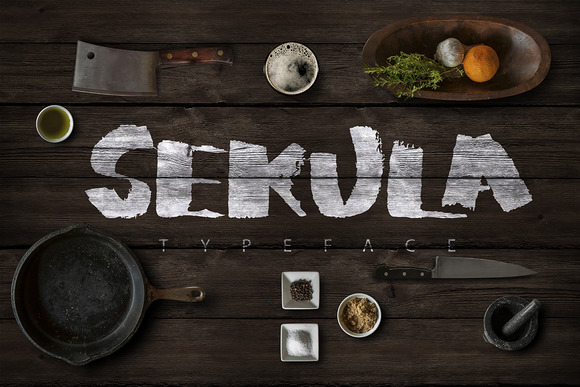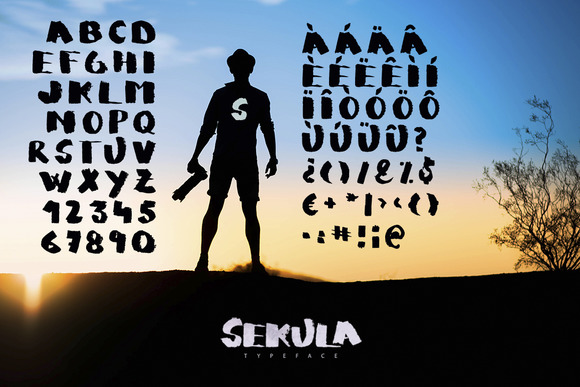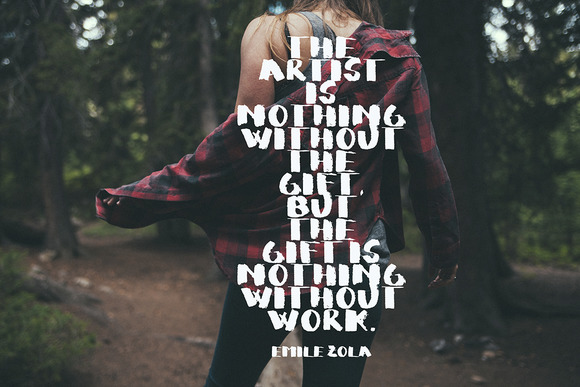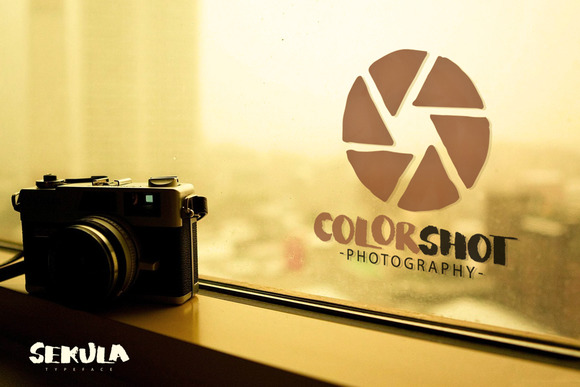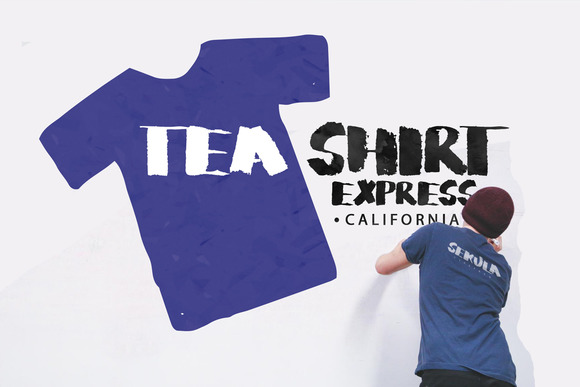
HomeScript FontsSekula Font Script Fonts Sekula Font FacebookXPinterestWhatsApp Sekula Font Poster 2 Sekula Font Poster 3 Sekula Font Poster 4 Sekula Font Poster 5 About Sekula Font Sekula is a strong hand painted font by Pere Esquerrà . DOWNLOAD ON CREATIVE FABRICAThis font is sold and delivered by Creative Fabrica. Font Canyon may earn a commission if you buy through this link. People also explored Princeska Font Forever Font Rebeca Font Pog Easter Egg Font Central Point Script Gimbel Script Family Holiday Blurry Loving Font Cold Snowflake Font 272 0 TagsSekula Font Previous articleSheena FontNext articleRobix Font LEAVE A REPLY Cancel reply Comment: Please enter your comment! Name:* Please enter your name here Email:* You have entered an incorrect email address! Please enter your email address here Website: Save my name, email, and website in this browser for the next time I comment. Personal Use Free Omellia Personal Use Free Read more about this font Spectrashell Personal Use Free Read more about this font Carnivals Personal Use Free Read more about this font Austins Personal Use Free Read more about this font BLOG Top 10 Handwritten Fonts That Elevate Your Designs Top 10 Handwritten Fonts That Will Elevate Your Designs Handwritten fonts bring a warm, personal touch to every creative project. Whether you're designing logos, invitations,... Exploring Font Trends Using Fonts in Digital Marketing: Tips to Strengthen Your Brand Identity Free Fonts Risk: Why Free Fonts Can Be Dangerous for Designers